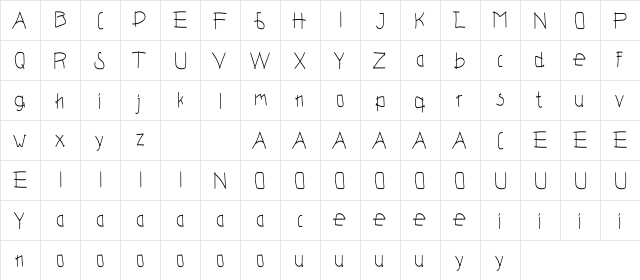
Melodi Regular
Design Context for Melodi Typeface
Melodi takes a measured approach to typography — its balanced proportions and neutral character make it a reliable workhorse for both digital and print work.